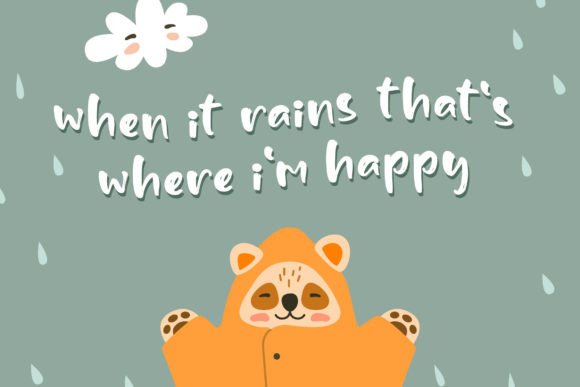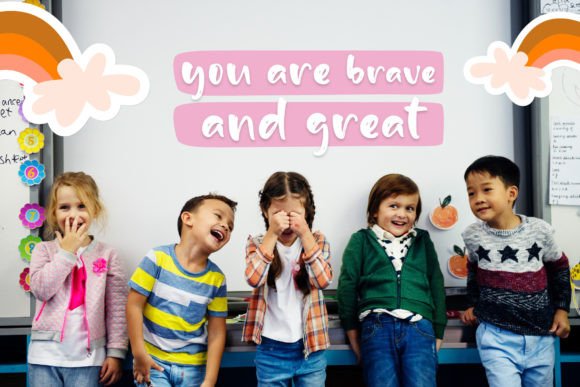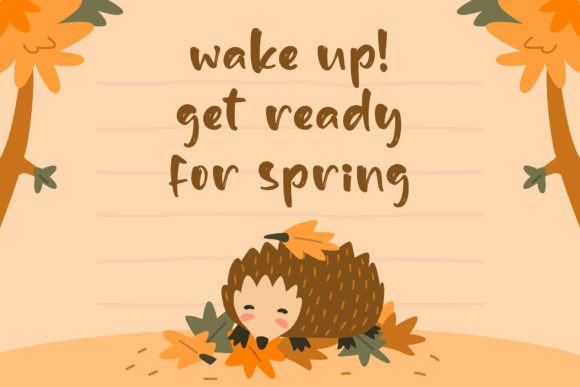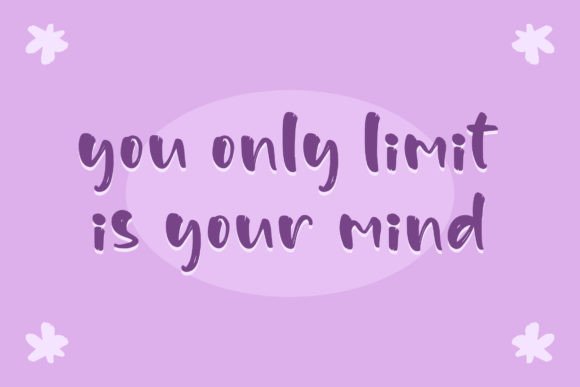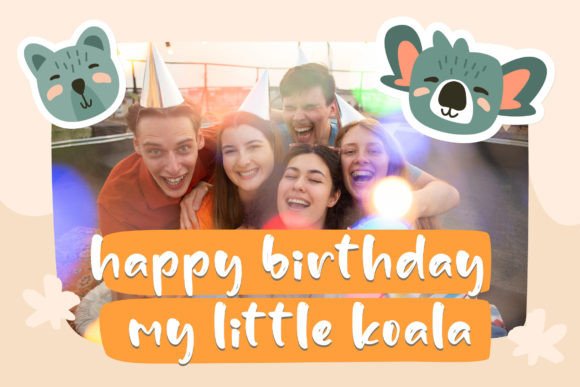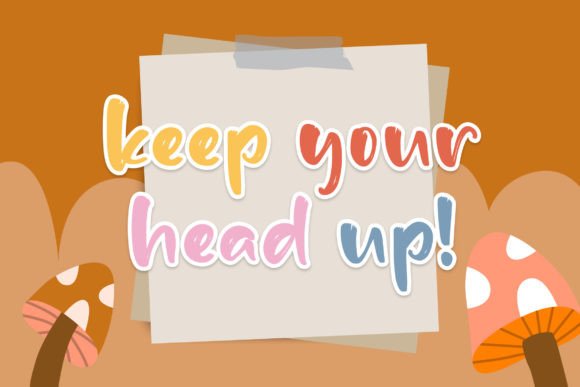
Introduction to Mestgora Font
As a designer, there’s nothing quite like the thrill of bringing a creative project to life. The rush of ideas, the experimentation with different styles, and the satisfaction of seeing your vision take shape – it’s a feeling like no other. And sometimes, all it takes is the right font to elevate your design from good to great. That’s where the Mestgora Font comes in – a stunning, handwritten brush font that’s sure to add a touch of youthful spirit to your next project.
With its bohemian vibe and hand-drawn charm, the Mestgora Font is the perfect design resource for anyone looking to add a little personality to their work. Whether you’re creating a poster, designing a magazine cover, or working on a logo project, this high-quality font is sure to impress. And the best part? It’s available for free download, complete with a transparent background, making it easy to incorporate into your design without any hassle.
Key Features of Mestgora Font
- High-quality font designed for creative projects, ideal for use as a design resource.
- Unique characteristics: bold and modern design, perfect for creating eye-catching headlines and titles.
Honest Review: Mestgora Font
I recently came across the Mestgora Font while searching for a new design resource to enhance my creative project. Initially, I was impressed with its high quality and unique style.
- High-quality design: The Mestgora Font boasts a crisp, clean aesthetic that makes it perfect for a variety of creative projects.
- Limited character set: The Mestgora Font has a relatively limited character set, which may not be suitable for projects that require a wide range of characters.
- No bold or italic options: While the font looks great in its standard form, the lack of bold or italic options can be a drawback for certain design applications.
Overall, I’d say the Mestgora Font is a solid addition to any designer’s toolkit, particularly for projects that require a clean, modern aesthetic. However, its limitations may make it less suitable for more complex or extensive design projects.
Experiment with different font sizes, colors, and combinations to find the perfect balance for your design. Use the font to add a touch of elegance to your creative project.
Mestgora Font is perfect for:
- Brand identities and logos
- Marketing materials, such as brochures and flyers
Alternatives to Mestgora Font
The Great Vibes Font is a high-quality, cursive script font that is perfect for creative projects requiring a touch of elegance. It’s ideal for titles, headings, and any design element where a sense of sophistication is desired. Great Vibes Font is available for free download and features a transparent background, making it easy to use in various design settings.
Compared to Mestgora Font, Great Vibes Font has a more refined and luxurious feel, making it suitable for high-end design projects. However, Mestgora Font has a more modern and edgy vibe, which may be preferred for trendy designs.
The Alex Brush Font is a beautiful, handwritten font that is perfect for adding a personal touch to your design projects. It’s ideal for titles, headings, and any design element where a sense of warmth and personality is desired. Alex Brush Font is available for free download and features a transparent background, making it easy to use in various design settings.
Compared to Mestgora Font, Alex Brush Font has a more feminine and elegant feel, making it suitable for designs targeting a female audience. However, Mestgora Font has a more modern and versatile design, making it suitable for a wider range of projects.
Yes, the Mestgora Font is a high-quality design resource that can be easily customized to suit your creative project’s requirements. You can use font editing software like FontLab or Glyphs to modify the font’s characters, spacing, and other properties.